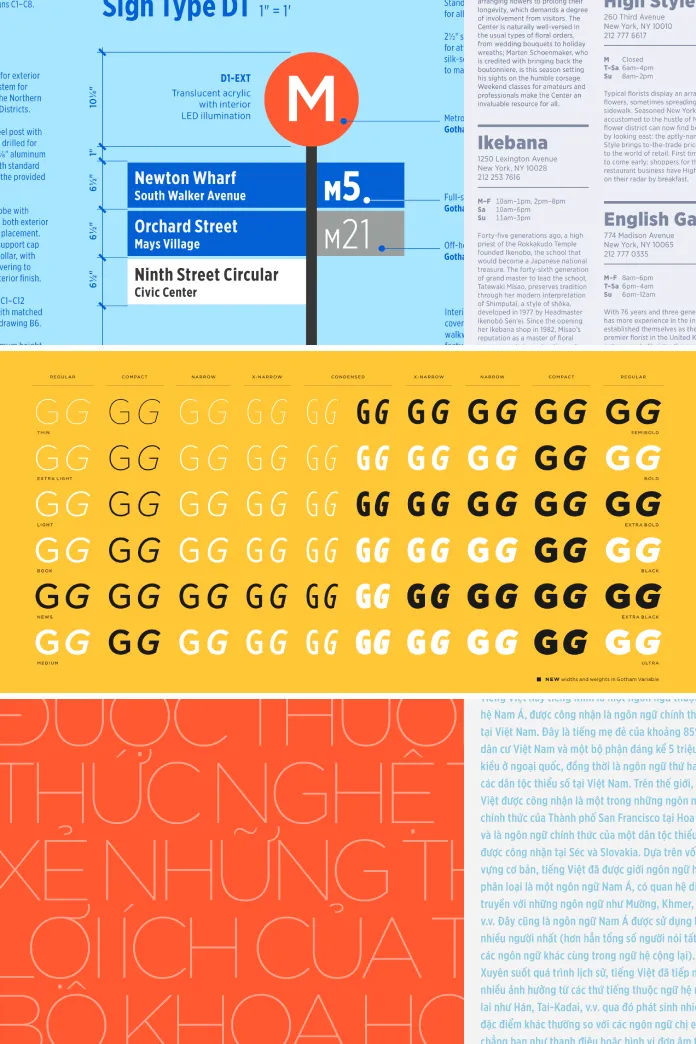
While some typefaces just age, Gotham accumulates. Twenty-five years after Jonathan Hoefler and Tobias Frere-Jones first sketched its letterforms from the building facades of New York City, the Gotham font family hasn’t just survived—it has become a kind of cultural infrastructure. Presidential campaigns, cornerstone inscriptions, magazine covers, brand identities, airport terminals. Gotham is everywhere, and yet it never quite announces itself. That invisibility is the point. And that’s exactly what makes it worth studying.
Typography rarely earns a seat at the table of cultural history. Gotham did. So the real question isn’t why designers keep choosing it. The real question is why it still feels like the right choice—in 2025, with hundreds of geometric sans-serifs competing for the same shelf space. This article makes the case that Gotham’s longevity isn’t accidental. It’s structural. It’s philosophical. And with the recent introduction of Gotham Variable, it’s becoming something new.
What Makes the Gotham Font Family Different from Other Geometric Sans-Serifs?
Let’s be honest: the geometric sans-serif genre is crowded. Futura, Avenir, Neuzeit Grotesk, Brandon Grotesque—each one draws from the same deep well of Bauhaus rationalism and 20th-century modernism. So what separates the Gotham typeface from those peers?
The answer lives in its origin story. Most geometric sans-serifs were designed as typographic ideals—shapes that emerged from the drawing board, from compass and ruler, and from a theory about what letters should be. Gotham didn’t start that way. It started on the street.
Frere-Jones spent years documenting the hand-painted, cast, and fabricated lettering that covered New York City’s commercial buildings—awnings, signboards, bronzed entrance numerals, and painted delivery trucks. These weren’t designed by type designers. They were made by sign painters, fabricators, and craftsmen who had their own intuitive sense of what a letter needed to be. Bold, clear, direct. Built to last. Built to communicate at a glance.
Hoefler describes this source material as an “engineer’s idea of basic lettering”—letters that transcend both the characteristics of their materials and the mannerisms of their makers. That phrase is worth sitting with. It captures something essential about Gotham: it doesn’t feel like one person’s handwriting. It feels like a collective agreement about what a letter fundamentally is.
The Geometry of Authenticity: A Framework for Understanding Gotham’s Visual Logic
To explain why Gotham works so well across so many contexts, I’d like to introduce a framework I call Geometric Authenticity—the quality of a typeface that achieves optical coherence not through mathematical perfection, but through the internalized geometry of real-world craft. This is distinct from what we might call Didactic Geometry (Futura’s rigid modularity) or Humanist Geometry (Gill Sans’s handwriting undercurrent).
Gotham lives in a third space. Its letterforms look geometric because they are circular bowls, consistent stroke widths, and minimal contrast. But they also read as organic because their proportions are calibrated to how humans actually perceive letters, not just how rulers measure them. The two-story lowercase a, for instance, is technically unnecessary in a geometric design. But it dramatically improves legibility at text sizes. That’s not geometry speaking—that’s judgment.
This is why Gotham can work at 8pt in a caption and at 80pt on a building facade. It’s not performing in either context. It’s simply being itself.
From GQ to the White House: The Cultural Journey of the Gotham Font
The Gotham font made its public debut in 2001, in the pages of GQ magazine. The commission was specific: create a sans-serif that felt “masculine, new, and fresh”—geometric in structure, but with a credible, established authority. GQ needed something that could carry weight without looking heavy. Gotham delivered.
For its first few years, Gotham circulated primarily within design circles—the kind of typeface that designers recognized and specifiers requested. Then 2007 happened.
Barack Obama’s presidential campaign adopted Gotham as its primary typeface. Suddenly, a font that had been a designer’s tool became a political symbol. The choice wasn’t arbitrary. Gotham’s visual personality mapped perfectly onto the campaign’s positioning: modern but not cold, confident but not arrogant, clean but not sterile. When the campaign’s word was “change,” Gotham said it in a voice that felt trustworthy.
After that moment, Gotham’s trajectory became exponential. Cultural institutions, global brands, and civic organizations all reached for the same typeface. Today, it appears on the cornerstone of One World Trade Center, in branding for the New York University system, and across countless identities where clarity and institutional authority matter equally.
The Authority Paradox: Why Gotham Signals Power Without Intimidation
Here’s something I find genuinely fascinating about the Gotham font family: it achieves authority without aggression. Most “powerful” typefaces—Helvetica Neue Black, Impact, Trade Gothic Condensed—communicate strength through compression, weight, or visual tension. They assert dominance.
Gotham doesn’t assert itself. It states.
I call this the Authority Paradox: Gotham reads as confident precisely because it isn’t trying to impress you. Its letterforms have generous proportions, open apertures, and moderate x-height. Nothing is squeezed. Nothing is exaggerated. The typeface simply occupies its space with the calm certainty of something that has always been there—like a cornerstone inscription, like the numerals on a bank facade, like the lettering on a city building from 1940.
This quality makes Gotham extraordinarily versatile. A bold-weight Gotham headline reads as strong and direct. A light-weight Gotham caption reads as refined and considered. Both feel like the same voice—just speaking at different volumes.
Gotham Variable: What the 25th Anniversary Update Means for Designers
In 2025, Hoefler & Co. celebrated Gotham’s 25th anniversary with a significant technical evolution: Gotham Variable. This update brings the family into the modern variable font era, and it’s more than a technical upgrade. It’s a philosophical restatement.
Variable fonts operate on continuous axes—weight, width, optical size—rather than discrete static instances. Where the traditional Gotham family offered fixed weights (Thin, Light, Book, Medium, Bold, and Black), Gotham Variable lets designers set weight and width anywhere along a continuous spectrum. Subtle distinctions become possible. A heading can sit at precisely the weight that serves the layout, rather than snapping to the nearest preset.
The update also expands language support to include Vietnamese and enhanced Cyrillic, extending Gotham’s reach to a significantly larger portion of the world’s readers. For a typeface that has always been used as institutional infrastructure, this matters enormously. A system can’t be universal if it excludes whole scripts.
One important note: these upgrades apply to the core Gotham family. Gotham Office, Gotham Rounded, Gotham SSm, and Gotham Rounded SSm remain unchanged. If you’re licensing one of those variants specifically, the variable functionality isn’t part of the package.
The Continuous Expression Model: A Framework for Variable Font Strategy
With the introduction of Gotham Variable, I think it’s worth introducing a second framework: the Continuous Expression Model. This describes how a variable font like Gotham Variable changes the designer’s relationship to typographic hierarchy.
In a static font system, hierarchy is created through discrete jumps—you move from Book to Bold, from Regular to Light. The gap between those steps is fixed. In a variable system, hierarchy becomes fluid. You can create visual distinctions that feel graduated rather than stepped. A subheading doesn’t have to be bold; it can be 550—a custom weight that sits exactly halfway between Book and Medium, precisely calibrated to the line length and surrounding whitespace.
This isn’t just a technical capability. It’s a different way of thinking about type. The Continuous Expression Model positions variable typography as a design discipline in its own right—one that Gotham Variable is now specifically equipped to support. For designers working in complex brand systems, this is a meaningful shift.
The Gotham Font Family in Brand Identity: Lessons from Its Widest Uses
Look at the organizations that have built their visual identity around the Gotham typeface, and a pattern emerges. They’re not all the same kind of organization. They range from political campaigns to luxury retailers to transit authorities to cultural institutions. What connects them?
Each one needs to communicate with a broad, diverse audience while maintaining a single, coherent voice. They can’t afford quirk. They can’t afford to alienate. But they also can’t afford to disappear—to look so neutral that they say nothing at all. Gotham threads that needle better than almost any typeface available.
Consider the Metropolitan Transportation Authority in New York. A transit system serves millions of people daily, across every demographic, literacy level, and visual context imaginable. The type has to work on a subway sign in a dim station, on a system map, on a digital display, and on a printed schedule. Gotham works in all of those contexts simultaneously, which is why it became a foundation for so much of the MTA’s typographic system.
The Institutional Fit Principle: When to Choose Gotham for Brand Work
Based on Gotham’s usage history, I’d argue there’s a clear set of conditions that make it the right typographic choice. I call this the Institutional Fit Principle: Gotham is optimally suited for organizations that need to project clarity, credibility, and accessibility simultaneously—without prioritizing any one of those qualities over the others.
If your brand needs to feel edgy, Gotham will feel too settled. If your brand needs to feel warm and personal, Gotham will feel too architectural. But if your brand needs to feel like it belongs—like it’s been here for decades and will be here for decades more—Gotham delivers that almost effortlessly.
This makes it particularly strong for civic organizations, universities, healthcare systems, cultural institutions, and any brand operating at the intersection of authority and accessibility.
Gotham vs. Competitors: How It Compares to Other Geometric Sans-Serif Fonts
Designers comparing geometric sans-serif fonts often weigh Gotham against a handful of close alternatives. Here’s how I’d characterize the distinctions.
Gotham vs. Futura: Futura is purer geometry—its letterforms push closer to the circle and the line. That purity gives it a utopian, forward-looking feeling, but also makes it harder to read at small sizes. Gotham’s organic adjustments make it significantly more legible in body text and display contexts alike. Futura is ideal for brand statements. Gotham is ideal for communication systems.
Gotham vs. Avenir: Avenir occupies the humanist end of the geometric spectrum. Its strokes have subtle variation, and its proportions lean toward the classical. Where Gotham reads as American and direct, Avenir reads as European and refined. Both are excellent. The choice depends on what emotional register the brand wants to occupy.
Gotham vs. Brandon Grotesque: Brandon is friendlier—its proportions are more casual, its curves more relaxed. For consumer brands with a lifestyle orientation, Brandon often fits better. For anything requiring institutional weight, Gotham is the stronger choice.
Gotham vs. Proxima Nova: This is probably the comparison most designers wrestle with. Proxima Nova is more affordable, widely available through Adobe Fonts, and highly legible. But it lacks Gotham’s depth—both in terms of stylistic range and historical resonance. Proxima Nova is a very good tool. Gotham is a cultural artifact that also happens to be a very good tool.
Practical Guide: How to Use the Gotham Font Family Effectively
Knowing when to choose the Gotham font family is one thing. Knowing how to use it well is another. Here are the principles I come back to most consistently when working with this typeface.
Weight Pairings That Actually Work
Gotham’s eight-weight range gives you significant flexibility. But more options mean more opportunities to make the wrong call. The pairings I find most effective: Book for body text, Bold for primary headings, and Light for captions or secondary text. That three-level system covers most editorial layouts without creating visual noise.
For display applications, Gotham Black is extraordinarily powerful at large sizes—but use it sparingly. Overused, it loses its impact. Used selectively, it creates unmistakable visual anchors.
Width Variations and Their Strategic Use
The Gotham family includes four width variants: Extra Narrow, Standard, and—in Gotham Variable—custom widths across the spectrum. Condensed widths are useful for data-dense environments: tables, infographics, and navigation systems. Standard width is the workhorse for most design applications. Resist the temptation to manually condense standard Gotham in page layout software—it destroys the carefully calibrated proportions.
Pairing Gotham with Other Typefaces
Gotham pairs exceptionally well with serif typefaces that have similarly clean, high-contrast proportions. Chronicle, Tiempos, and Publico all complement Gotham without competing with it. The contrast between Gotham’s geometric directness and a humanist serif’s warmth creates typographic tension in the best possible sense.
Avoid pairing Gotham with other geometric sans-serifs. The similarities create monotony rather than harmony. If you need a secondary sans-serif in a system built on Gotham, look toward humanist options—Freight Sans, Myriad, or even well-deployed system fonts in contexts where secondary type is purely functional.
Gotham in the MoMA Permanent Collection: Why This Matters
The fact that the Gotham typeface sits in the permanent collection of the Museum of Modern Art in New York is worth pausing on. MoMA doesn’t collect typefaces because they’re popular. It collects them because they represent something about how design solves problems—and specifically about how form and function can be unified into something that has lasting cultural significance.
Gotham earned that distinction because it did something genuinely new. It took lettering that existed outside the typographic tradition—signage, architectural lettering, and commercial hand-painted text—and transformed it into a fully developed type system with the depth and sophistication to operate across every context that modern communication demands.
That process of elevation—from street lettering to institutional standards—is itself a design story worth understanding. It tells us something important about where good typographic ideas actually come from. Not from the studio alone. From the city.
The Future of the Gotham Font Family: Predictions for the Next Decade
Where does Gotham go from here? I’ll make a few predictions—not guesses, but reasoned projections based on where the Gotham font family currently sits in the ecosystem of contemporary design.
First, Gotham Variable will increasingly replace static Gotham in digital-first design systems. As variable font support becomes standard across browsers and design tools, the continuous weight and width axes will allow brand systems to achieve more nuanced typographic hierarchies than static families permit. Design teams building component libraries and design tokens will especially benefit.
Second, Gotham’s expanded language support will drive adoption in markets where it was previously underutilized. Vietnamese and enhanced Cyrillic coverage open meaningful new territory. Global brands that previously needed a separate typeface for these scripts can now maintain Gotham as a unified system across markets.
Third, the geometric sans-serif category will continue to fragment, with new typefaces targeting increasingly specific aesthetic niches. Gotham’s response to that fragmentation will likely be continued system depth rather than new stylistic directions. The core proposition—authority, clarity, accessibility—doesn’t need to change. It just needs to work in more contexts, at more scales, in more languages. The 25th-anniversary update is a clear signal that Hoefler & Co. understands this trajectory.
My personal prediction: Gotham will remain the default typographic choice for institutional and civic identity work for at least another decade. Its combination of cultural resonance, technical depth, and visual neutrality creates a competitive moat that newer typefaces will struggle to erode. When you need a typeface that feels like it has always been there, Gotham is still the answer.
Frequently Asked Questions About the Gotham Font Family
Who designed the Gotham font?
The Gotham font was designed in 2000 by Tobias Frere-Jones, with contributions from Jesse Ragan, while Frere-Jones was working with Jonathan Hoefler at Hoefler & Frere-Jones. The typeface was commissioned by GQ magazine and released publicly in 2002. It is currently published by Hoefler & Co.
What font family is Gotham part of?
Gotham is the core member of a broader type system that includes Gotham Rounded, Gotham Narrow, Gotham Extra Narrow, Gotham SSm (Screen Smart), Gotham Office, and the newly introduced Gotham Variable. Together, these variants cover print, screen, office, and variable font use cases.
What is the Gotham font used for?
The Gotham font family is widely used in brand identity, editorial design, wayfinding systems, political campaigns, cultural institutions, and digital interfaces. Its combination of geometric clarity and institutional authority makes it particularly well-suited for organizations that need to communicate credibly to broad audiences.
Is Gotham a free font?
No. Gotham is a commercial typeface published by Hoefler & Co. Licenses are available through typography.com, with pricing depending on the number of styles and usage type. The complete family is also available through Adobe Fonts for Creative Cloud subscribers in a curated subset of styles.
What is the difference between Gotham and Gotham Variable?
Standard Gotham consists of discrete static font instances at fixed weights and widths. Gotham Variable is a variable font that allows continuous adjustment of weight and width along custom axes, enabling more nuanced typographic decisions. Gotham Variable also includes expanded language support, including Vietnamese and enhanced Cyrillic.
What is the closest free alternative to Gotham?
The most frequently cited free alternatives are Montserrat (available via Google Fonts) and Raleway. Both share Gotham’s geometric character and are widely used in web design. Neither matches Gotham’s depth of stylistic range, historical resonance, or refinement of spacing and proportions—but for budget-constrained projects, both are legitimate options.
Why did Barack Obama’s campaign use Gotham?
The Obama 2008 presidential campaign adopted Gotham as its primary typeface because its visual character—modern, direct, authoritative but not cold—aligned with the campaign’s positioning. The typeface communicated institutional confidence while remaining accessible and forward-looking, qualities that directly reinforced the campaign’s central messages.
How many styles does the Gotham font family have?
The full Gotham family available through Hoefler & Co. includes 240 styles across all variants and package options. This covers four widths, eight weights, obliques, and specialized subfamilies, including Gotham Rounded, Gotham SSm, and Gotham Office.
What makes Gotham different from Futura?
Futura prioritizes pure geometric form—its letterforms derive from circles and straight lines with minimal optical adjustment. Gotham incorporates the organic corrections that experienced sign-makers and craftsmen developed intuitively, resulting in a typeface that reads as geometric but performs with the practicality of a humanist design. Gotham is generally more legible at text sizes and more versatile across design contexts than Futura.
Is Gotham in the MoMA collection?
Yes. The Gotham typeface is part of the permanent collection of the Museum of Modern Art in New York, recognizing its significance as a design artifact that both captured and influenced 21st-century American visual culture.